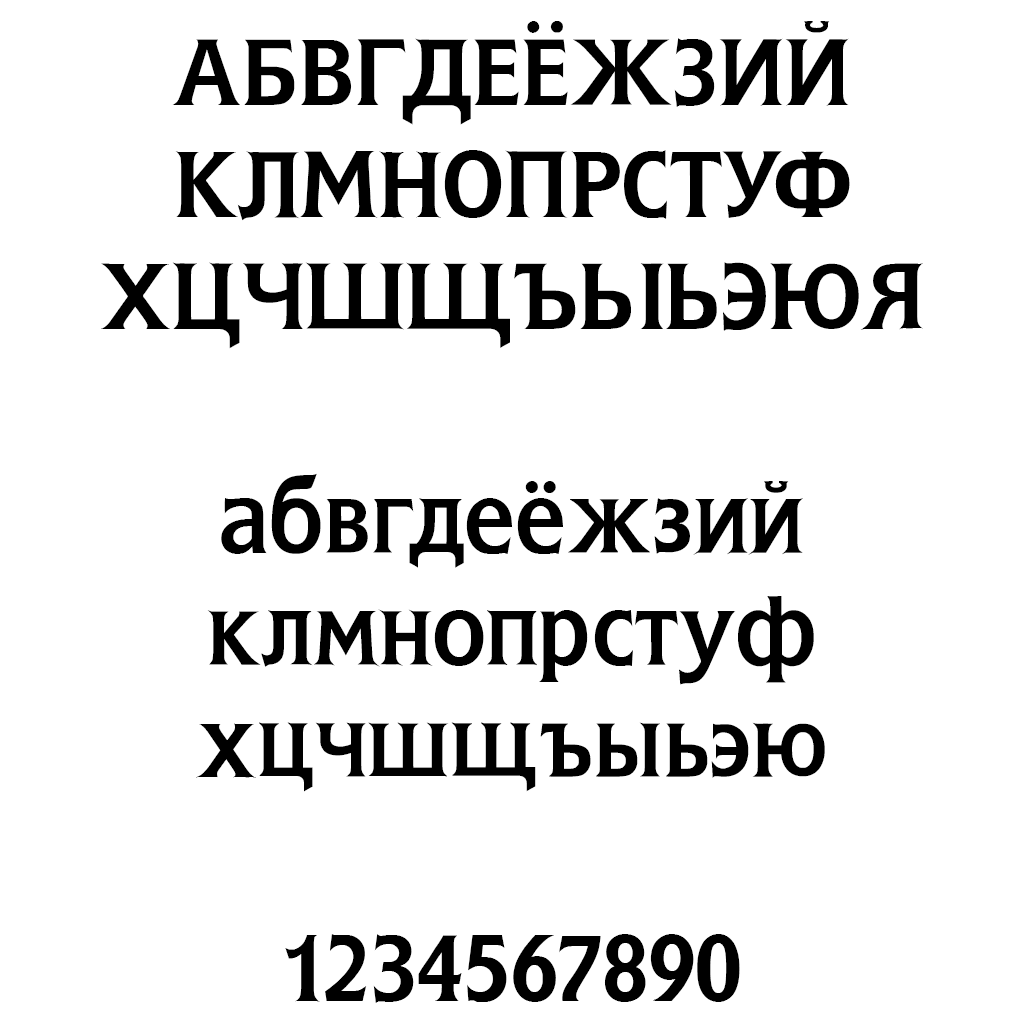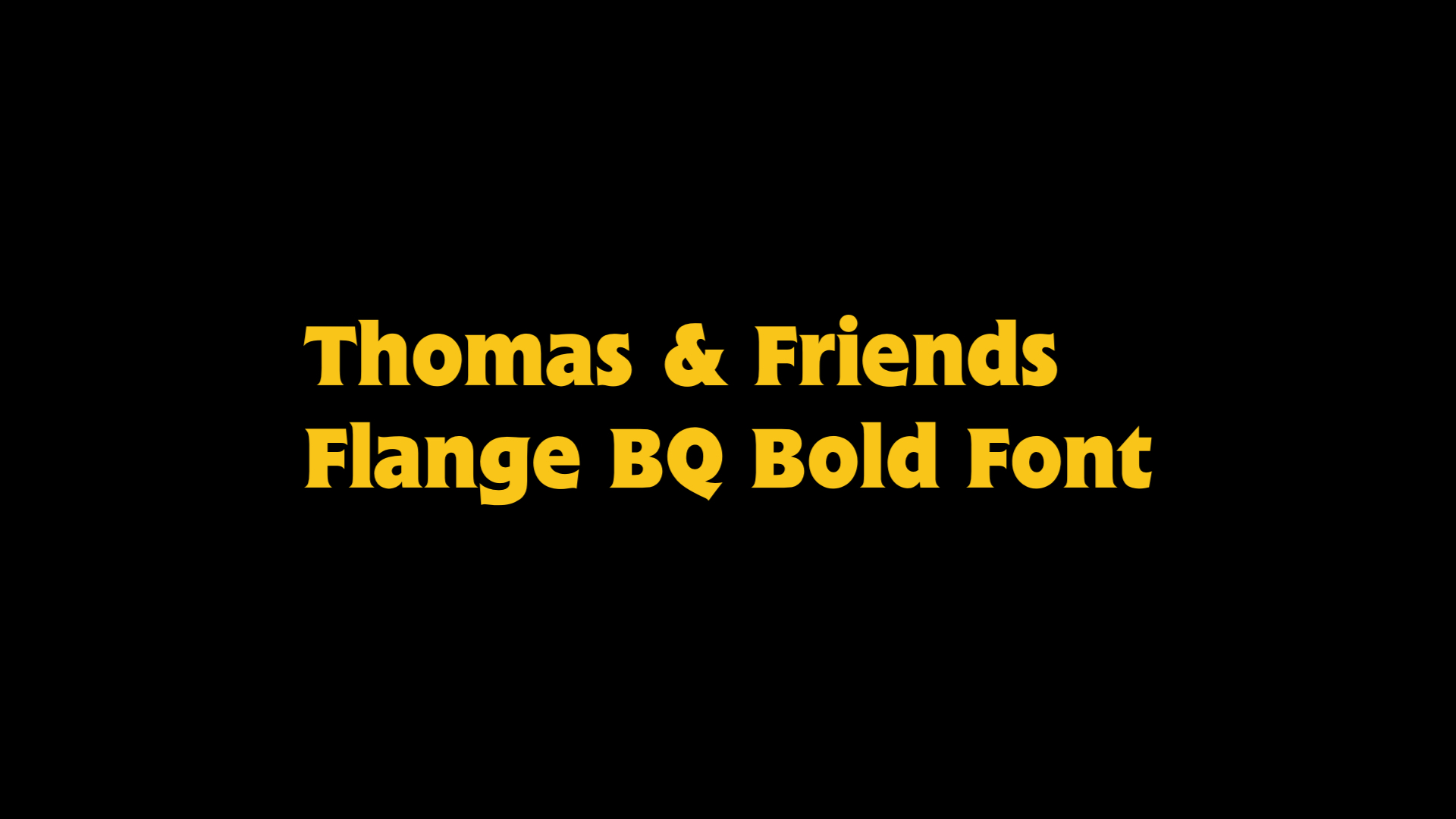
Flange Bq Font
Flange Bq Font - Font flange bq bold belongs to the categories bold, decorative, display,.
Font flange bq bold belongs to the categories bold, decorative, display,.